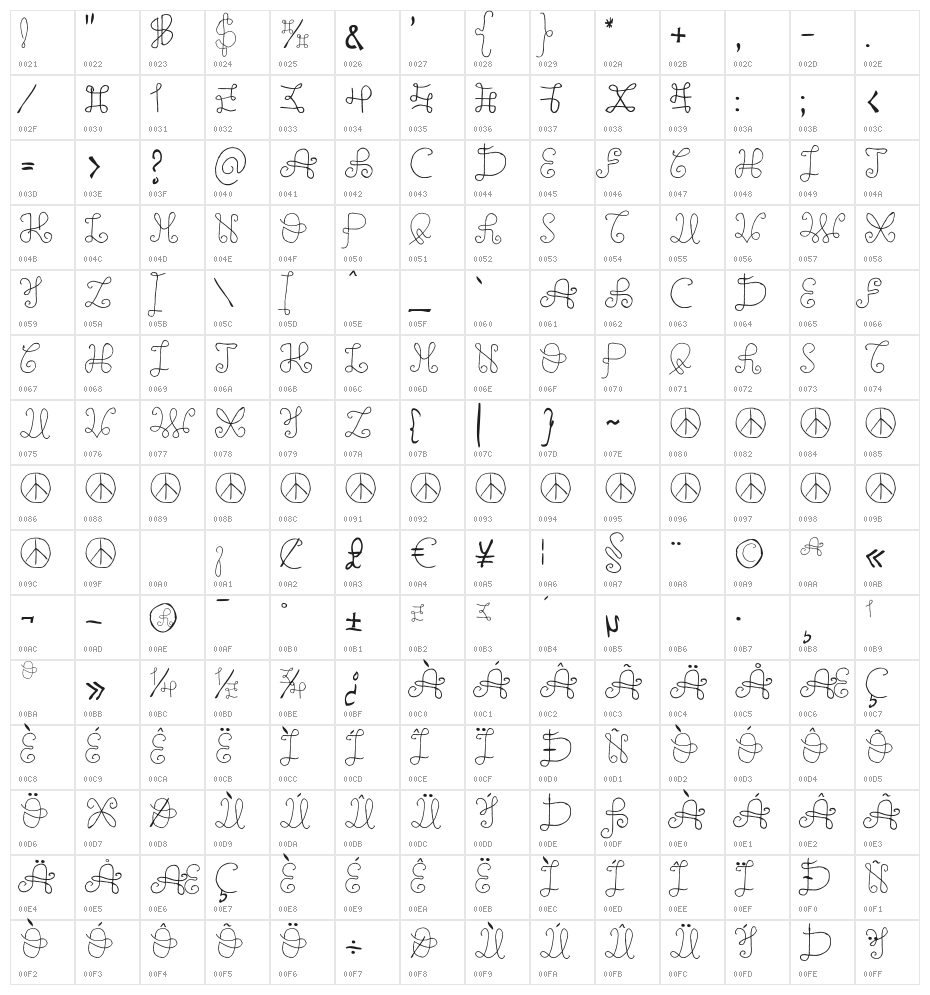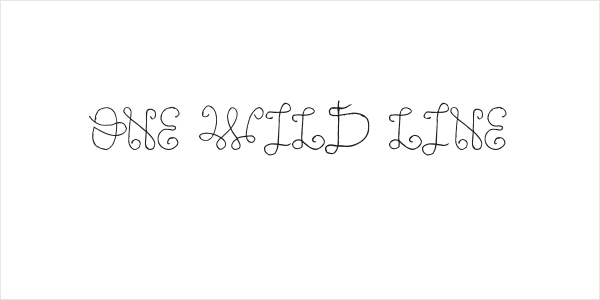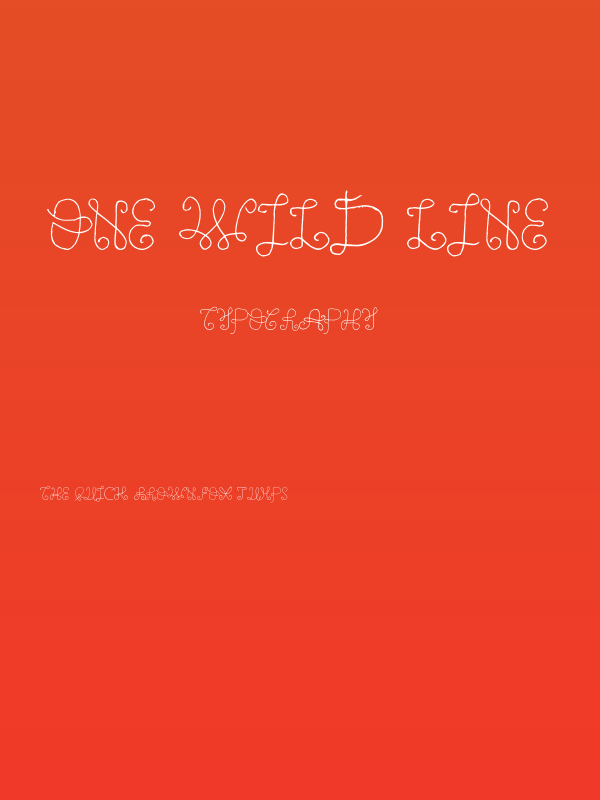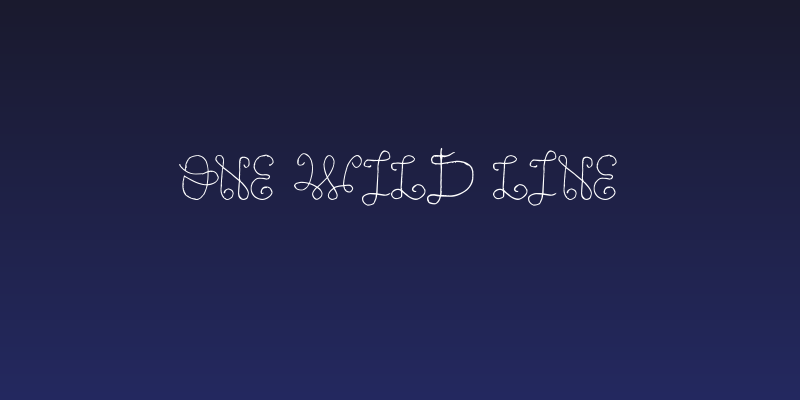
One Wild Line Font
One Wild Line Description
This font features a unique and whimsical design, characterized by its continuous, flowing lines that create an intricate and playful appearance. Each letter is crafted with a single, unbroken line that loops and curves, giving the font a sense of movement and fluidity. The characters are highly decorative, with elaborate swirls and curls that add a touch of elegance and creativity. Despite its ornate style, the font maintains a sense of balance and readability, making it suitable for artistic and expressive projects. The overall design is reminiscent of hand-drawn calligraphy, with a modern twist that makes it stand out.
| Use Case | Logos, Artistic projects, Invitations |
| Proposed Projects | Ideal for creative projects such as invitations, greeting cards, artistic posters, and branding that requires a unique and playful touch. |